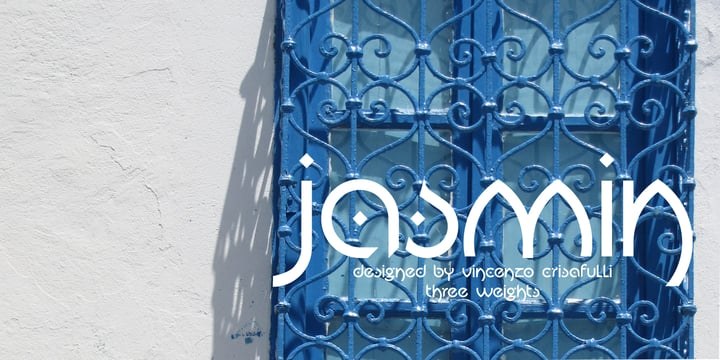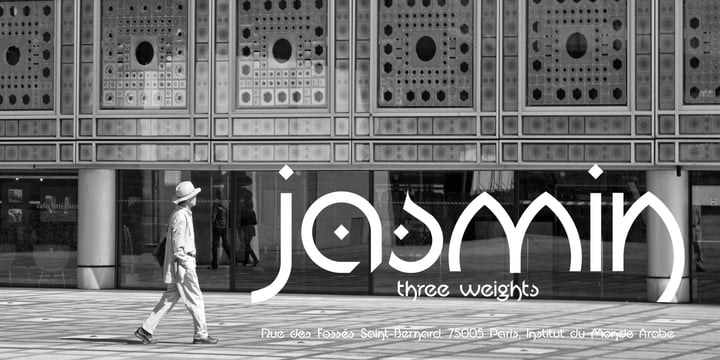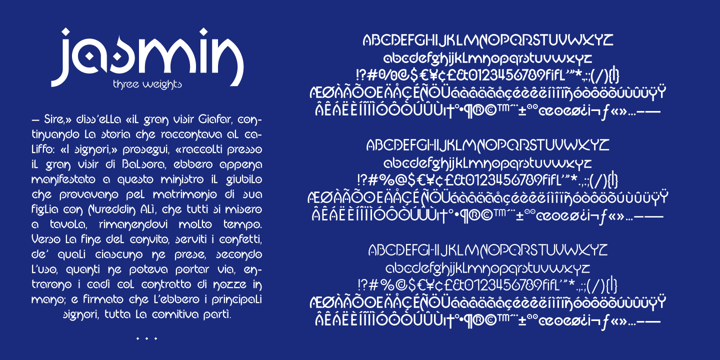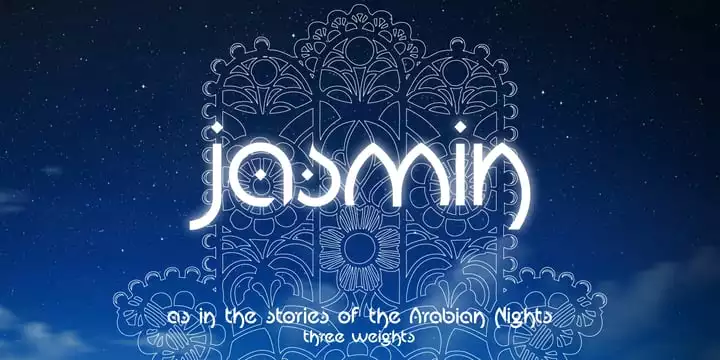
Jasmin Font
Jasmin is a tribute to the ancient stories of The Thousand and One Nights, in which a main story serves as a connection for a series of other stories, just like all the other glyphs are derived from one of Jasmin’s letters or from a sign. A graphic path in which we tried to combine the calligraphy designed with a quill with geometric research. Among the glyphs there is one referring to a letter from a famous font by Paul Renner, made by Fonderia Bauer in 1927.
Where Jasmin Font works best
Jasmin Font is built for size: event posters, hero headlines and billboard-style layouts.
High contrast display type like Jasmin Font reads instantly in thumbnails and motion graphics.
What is Jasmin Font good for?